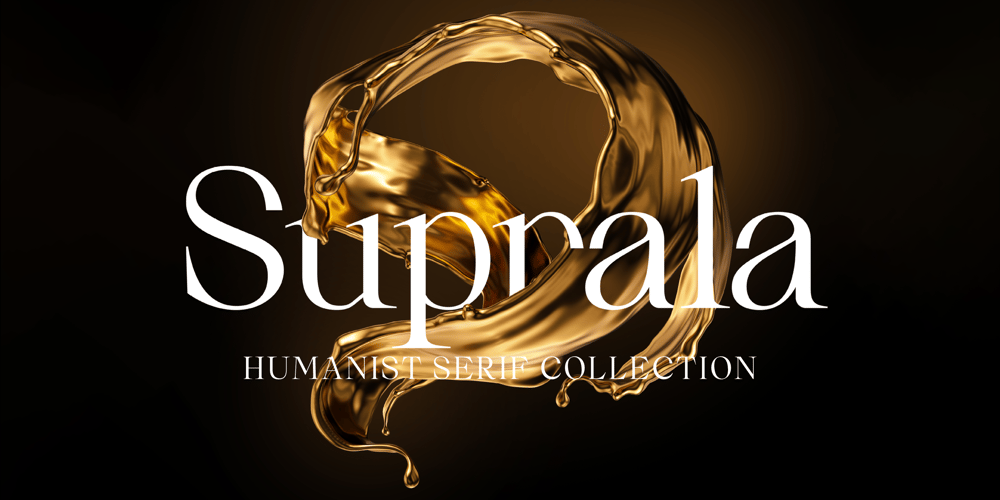
Suprala Font Family was designed by Paul Henry Robb and published by S6 Foundry. Suprala contains 12 styles and family package options. Suprala is a contemporary delicate humanist serif typeface, with beautifully balanced forms, perfect for branding and communications projects. Suprala’s round, elegant, and classically elegant design, supports all major Latin-based languages in twelve styles. True italics advance the aesthetics, bringing energy and making it suitable for modern applications. The Suprala character set incorporates numerous OpenType features – additional symbols, stylistic alternates, and unique ligatures both standard and discretionary.